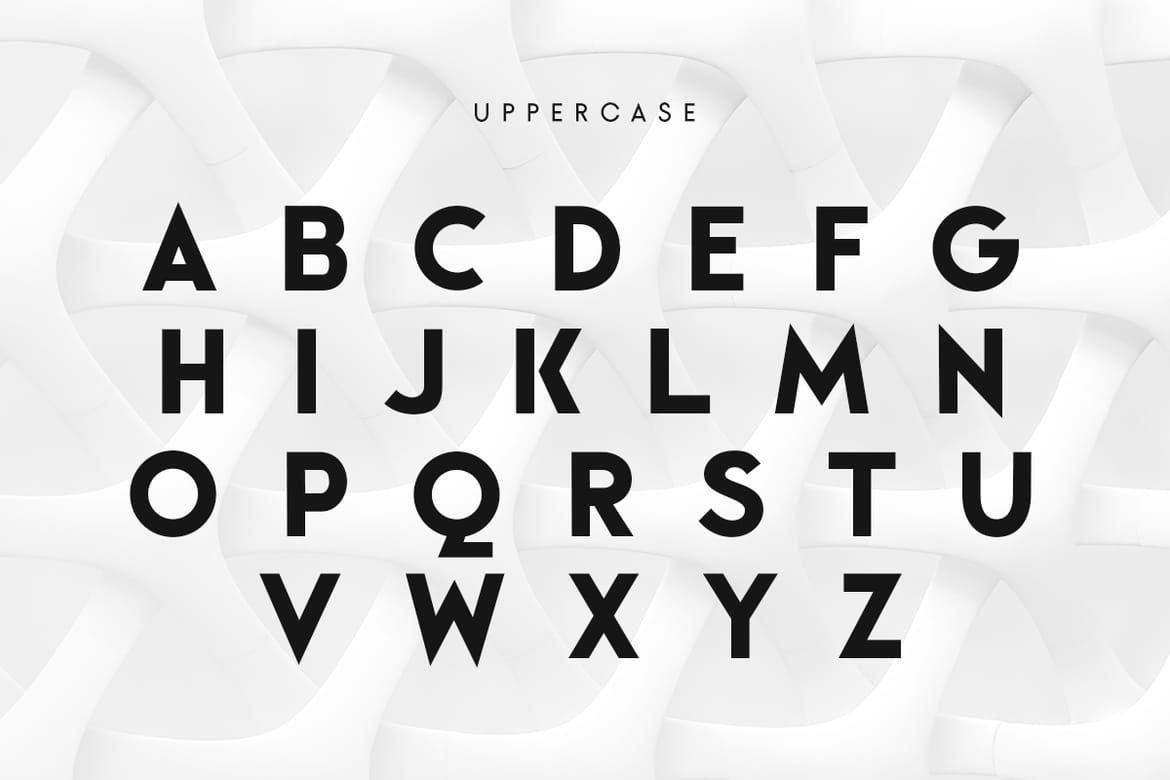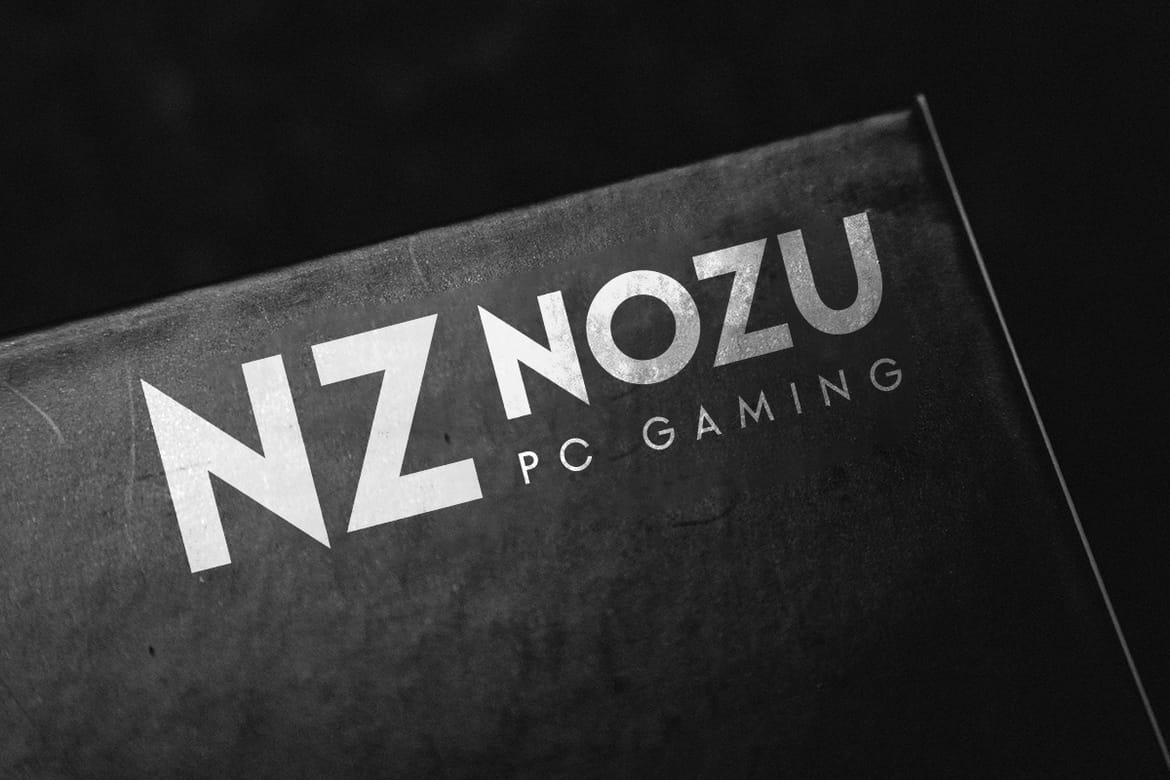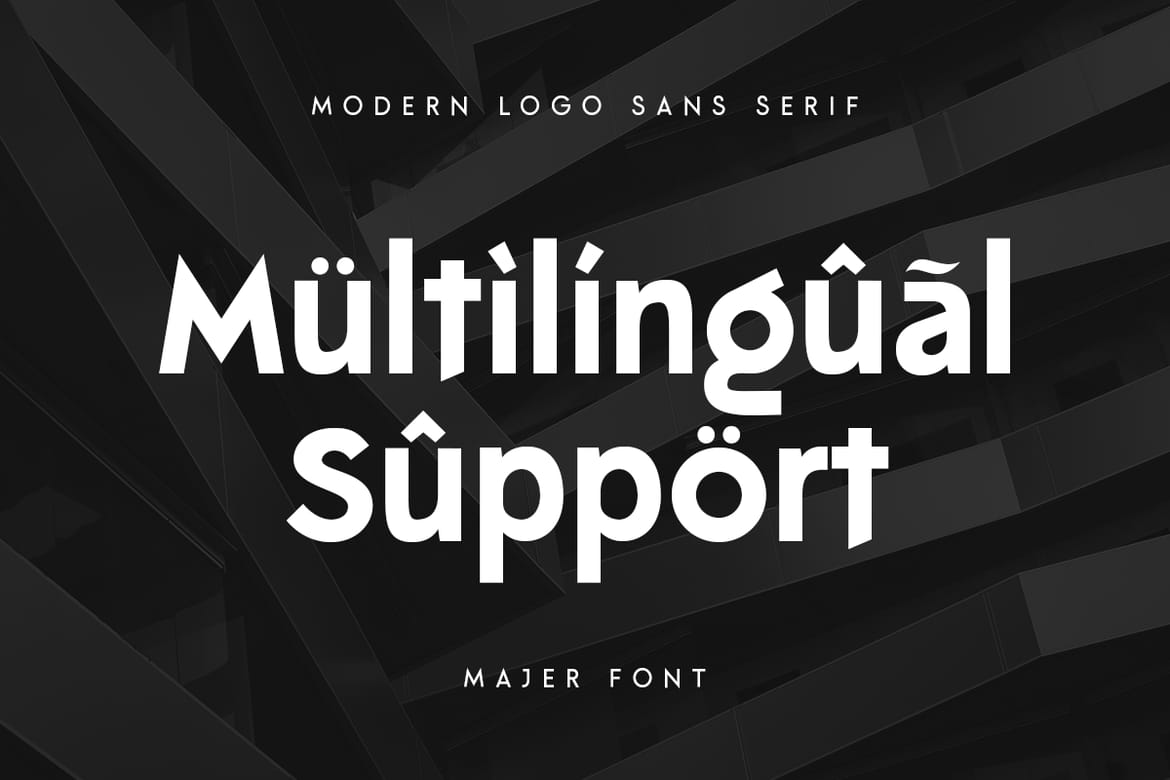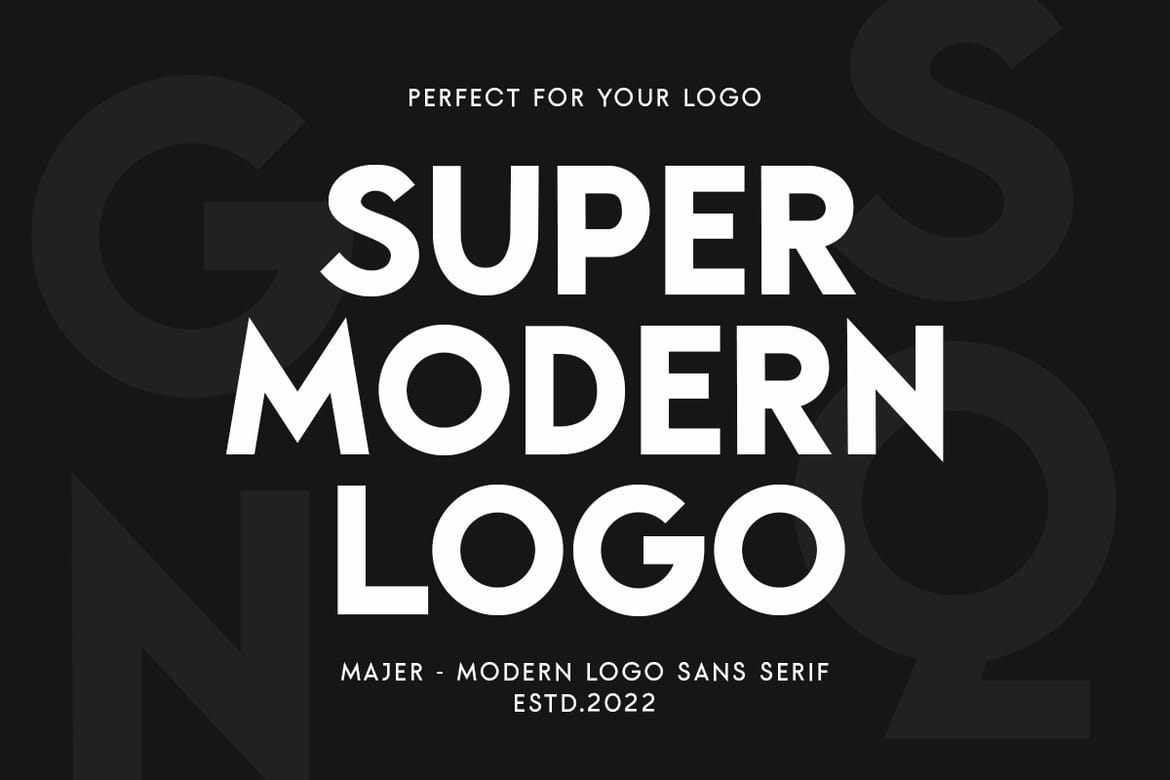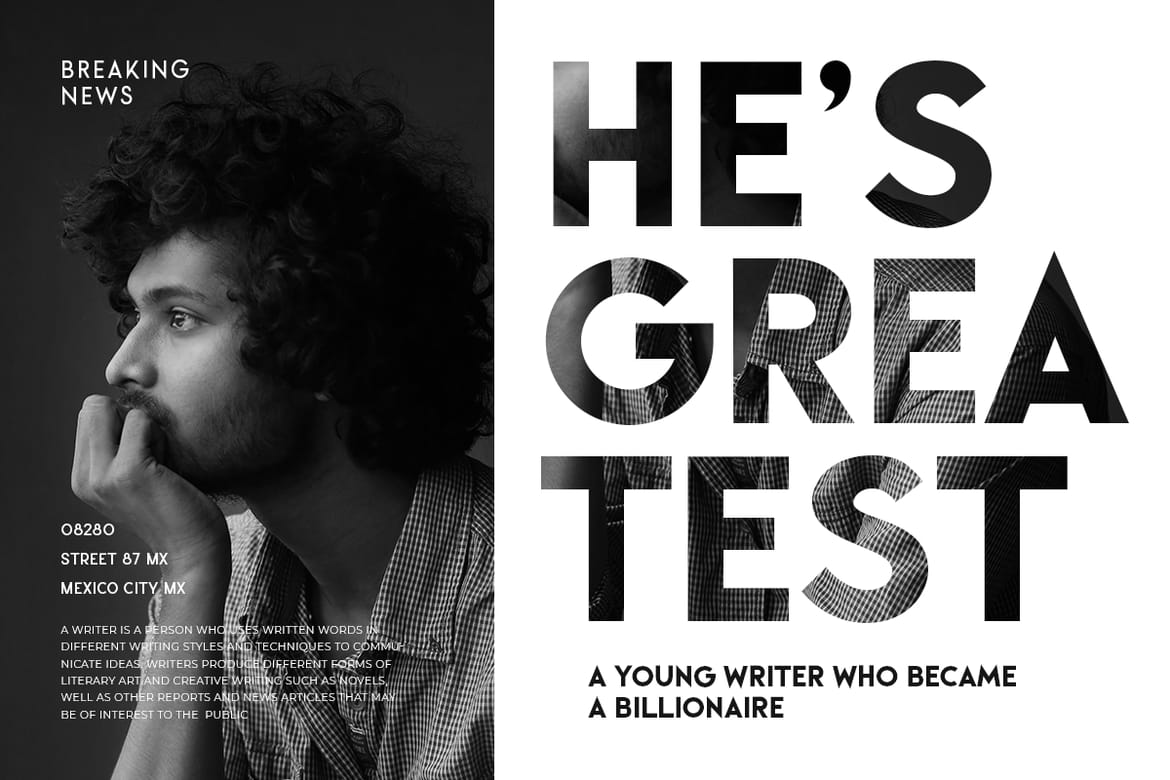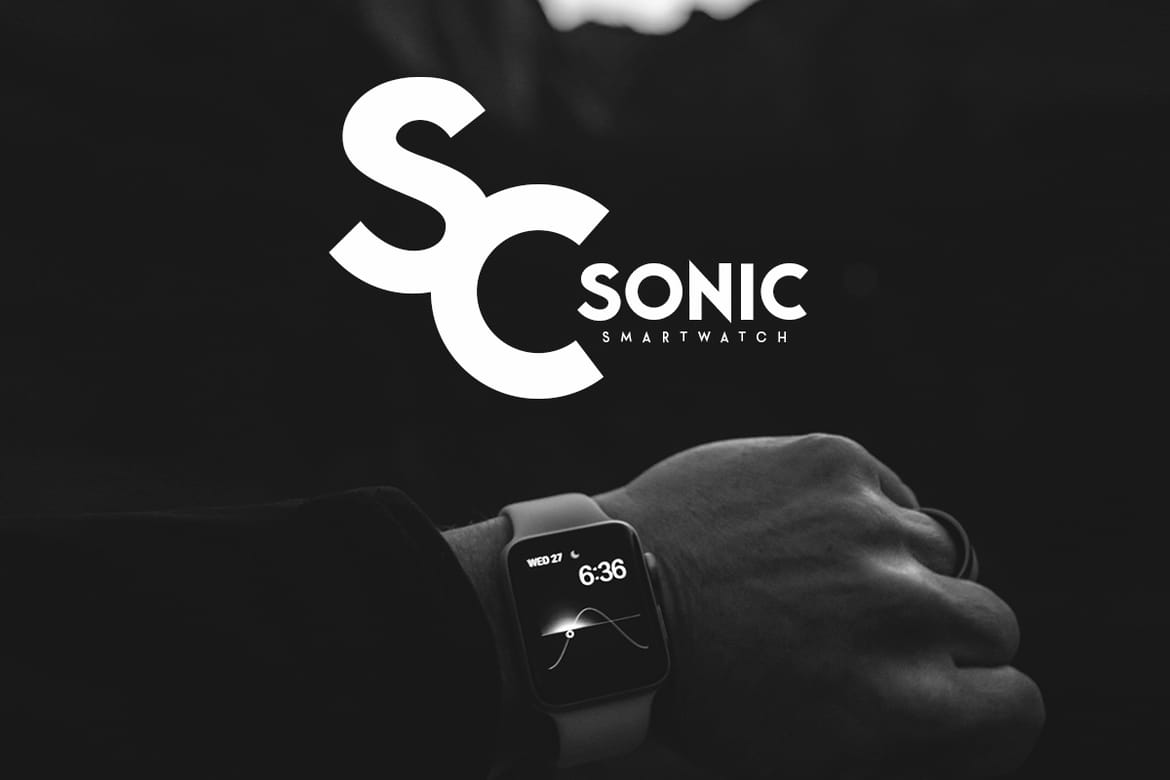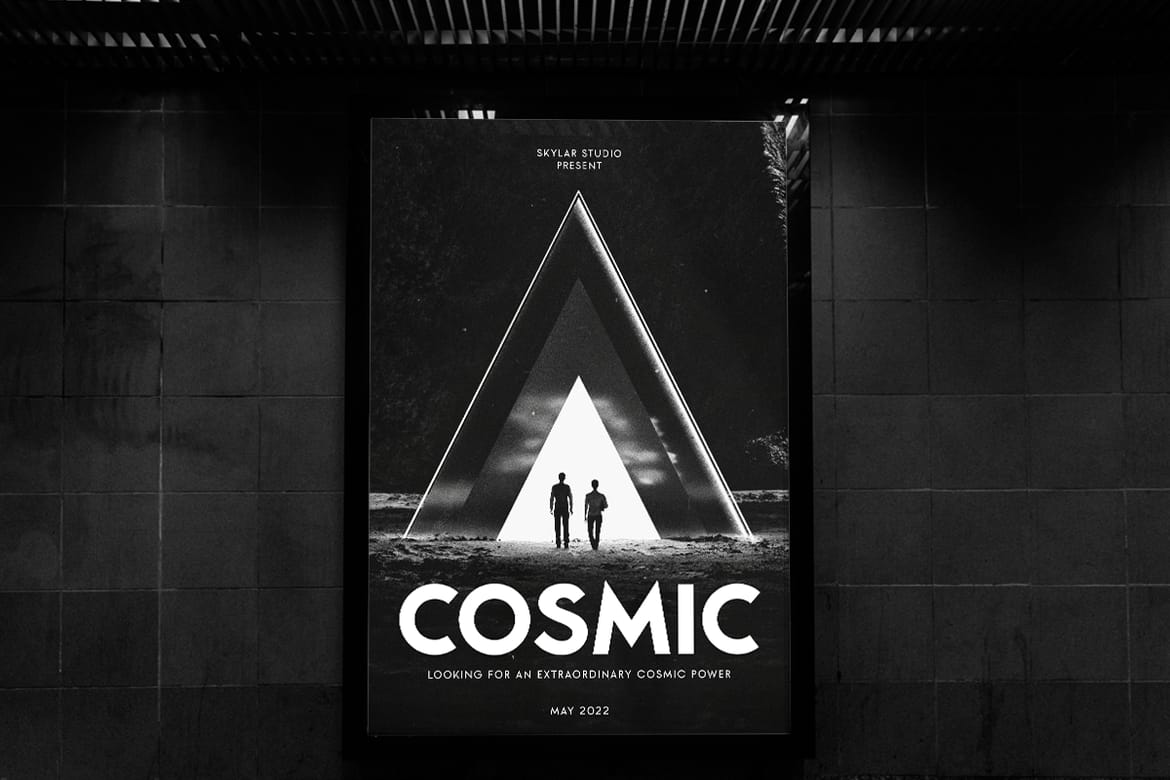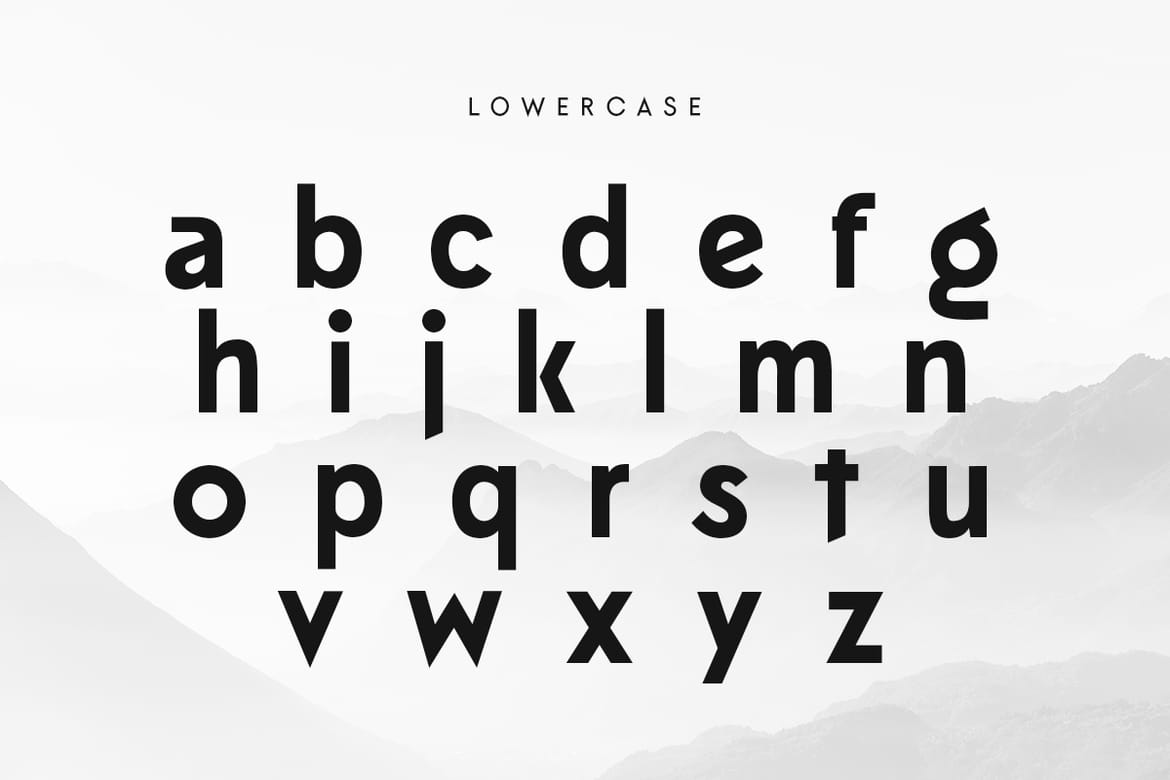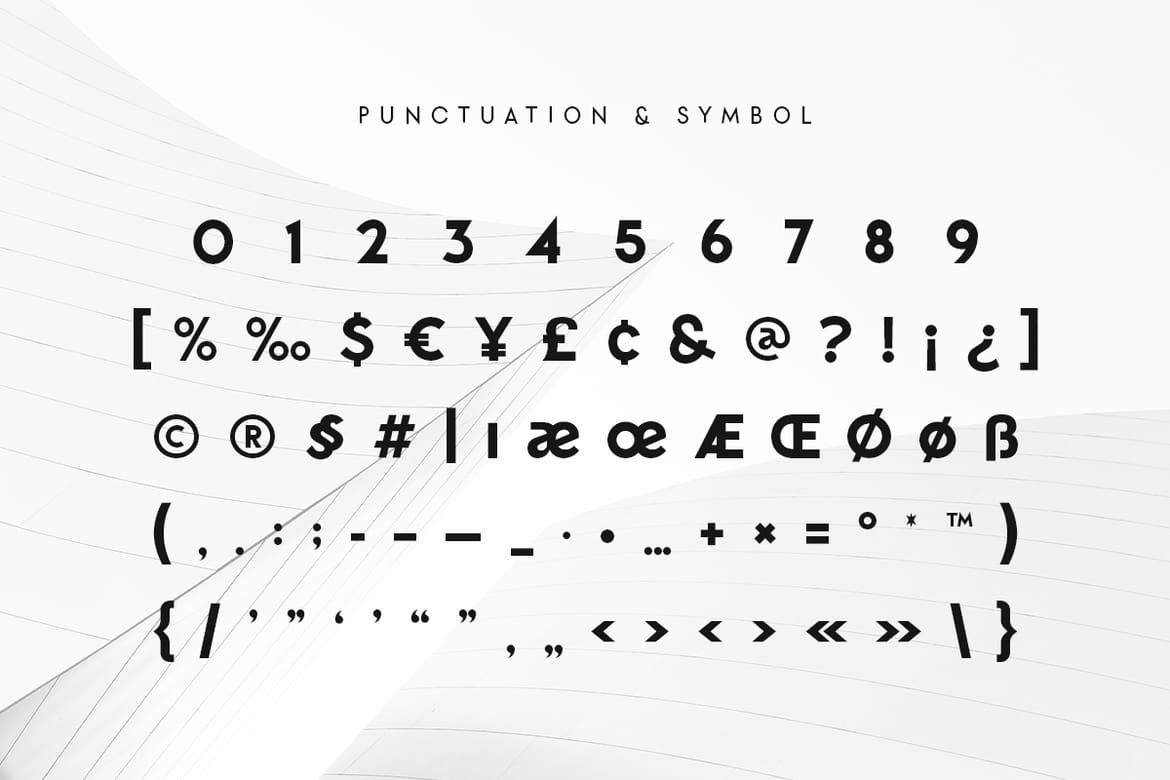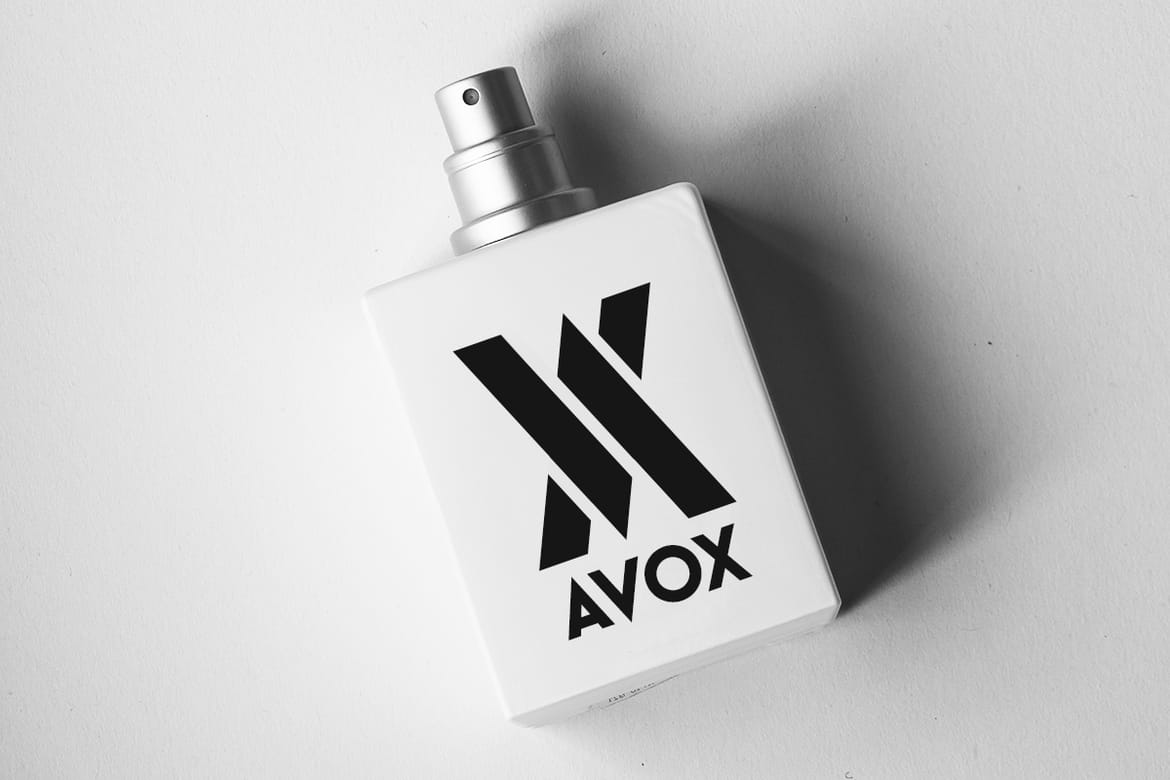
Majer - Modern Logo Sans Serif
Modern logo sans serif font perfect for branding and logo design needs with unique elegant character style. Ready with alternate characters and ligatures for creative variations.
• Logo font design
• Branding and identity
• Elegant modern style